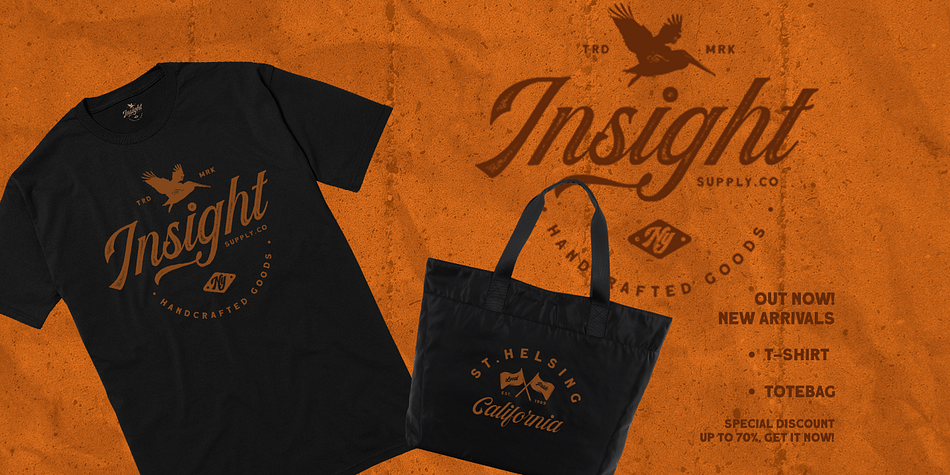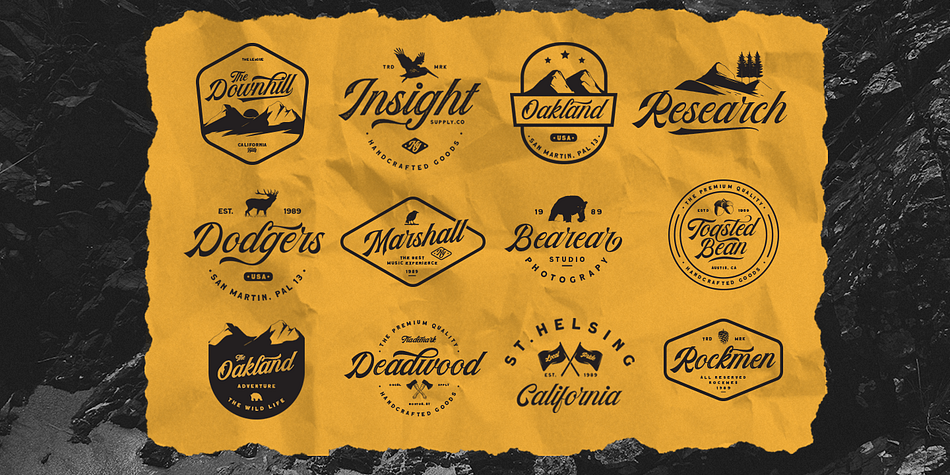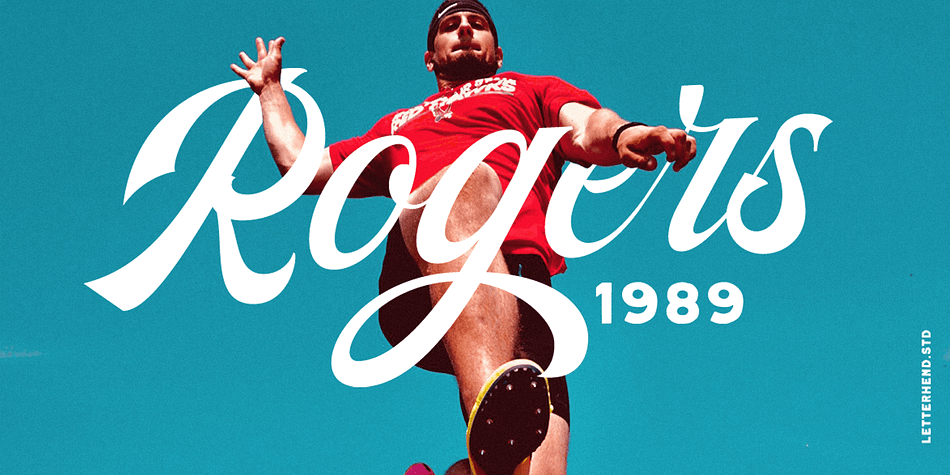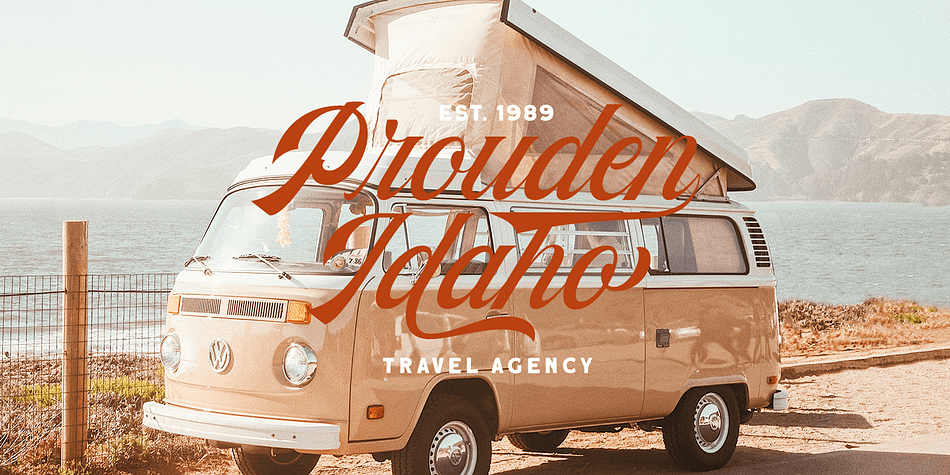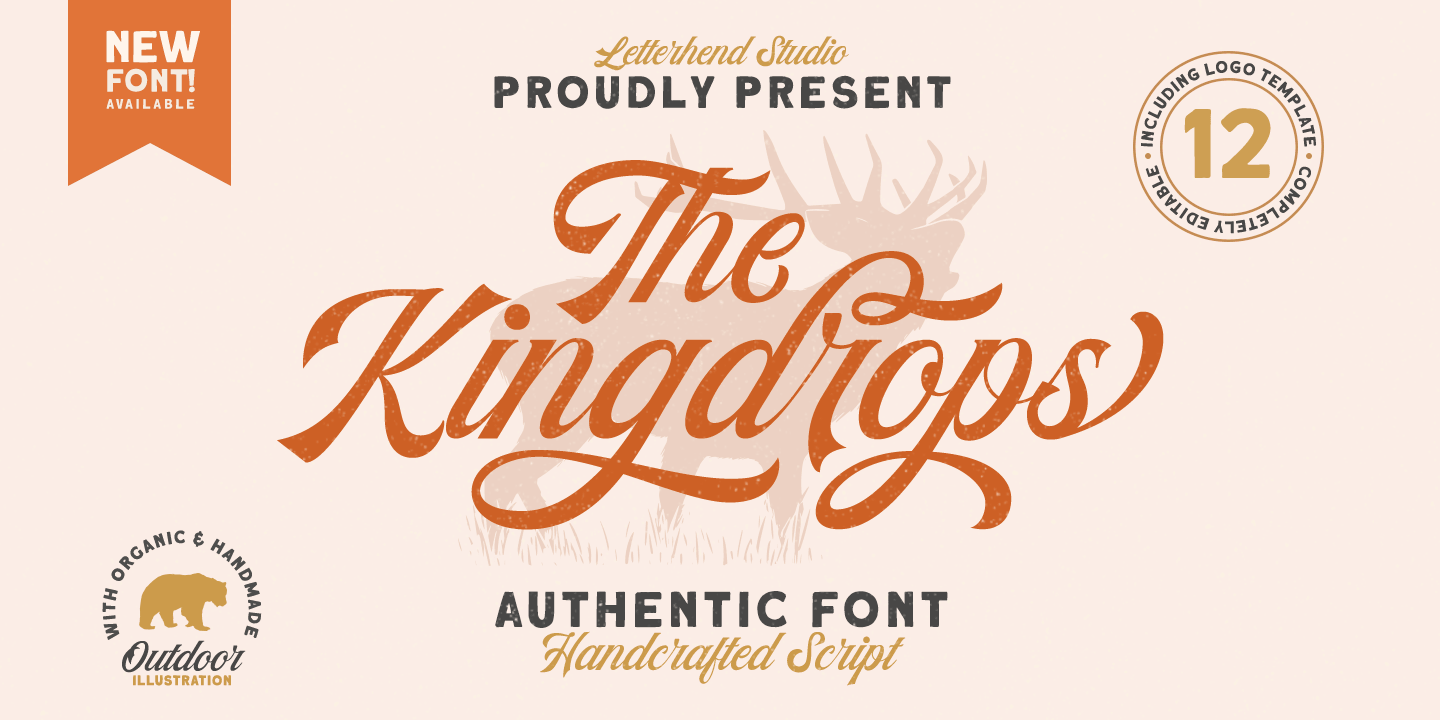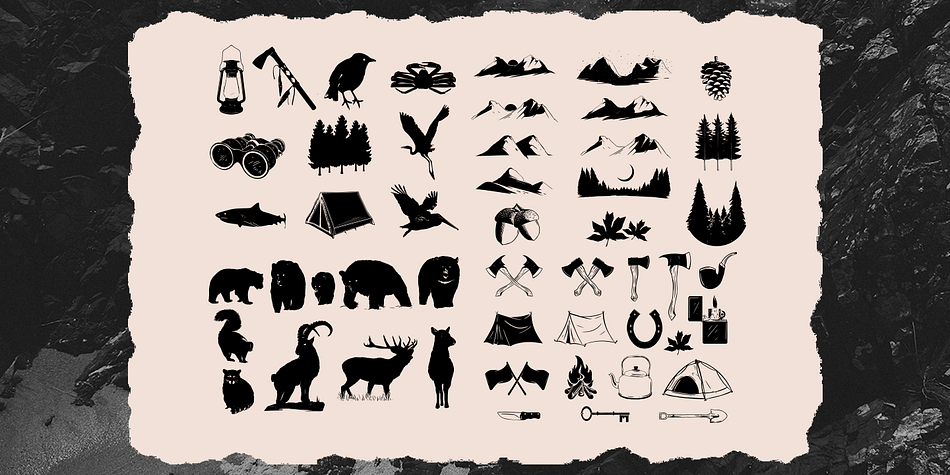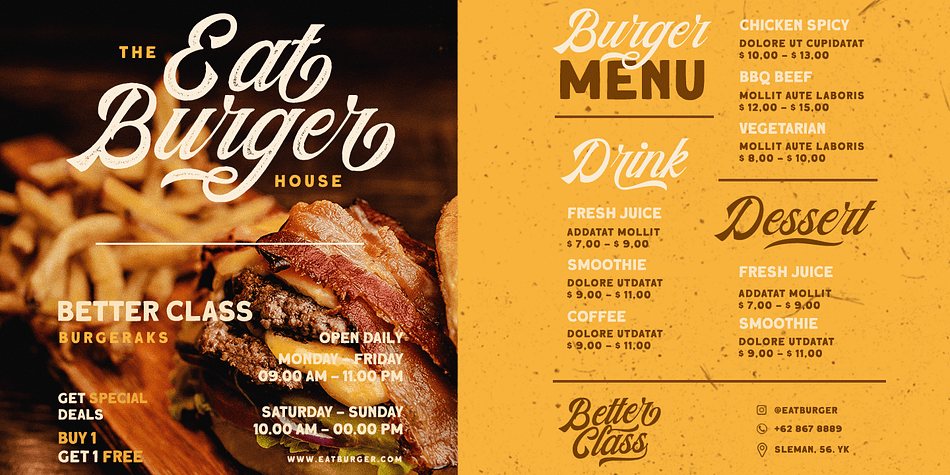
Designed by Hendry Juanda, The Kingdrops is a retro and script font family. This typeface has two styles and was published by Letterhend Studio.
Introducing, The Kingdrops. A cool font with 50 hand drawing objects, and 12 premade logo templates!
This item contain an amazing hand lettering script typeface. Provided with 50 hand drawing and 12 logo templates, ready to rock! This font perfectly made to be applied especially in logo, and the other various formal forms such as invitations, labels, logos, magazines, books, greeting / wedding cards, packaging, fashion, make up, stationery, novels, labels or any type of advertising purpose.